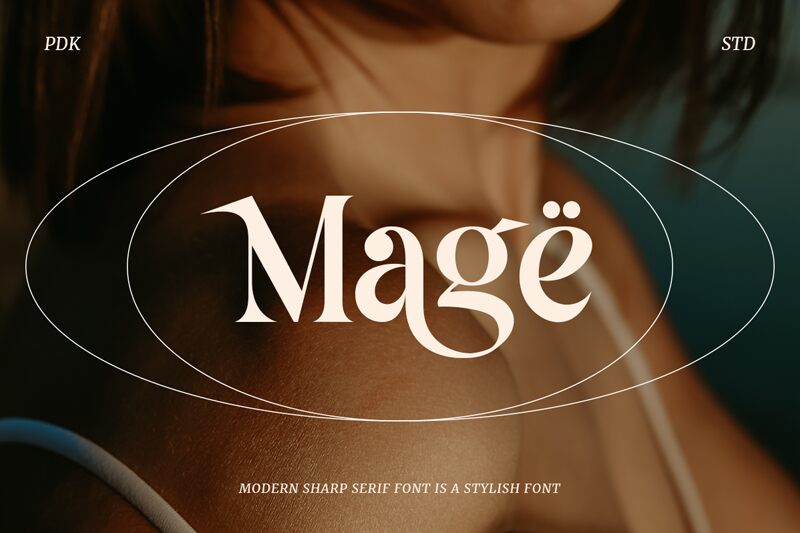
Mage, crafted by Pandeka Studio, stands out with its elegant serif style that exudes a blend of classical charm and contemporary flair. The font's letters boast graceful curves and refined edges that convey sophistication. Its bold strokes create a commanding presence on the page, making it an ideal choice for headlines and titles that aim to leave a lasting impression.
The versatility of Mage is evident in its potential applications across various mediums-its stylish serifs and strong character make it suitable for branding, editorial work, and print media where distinction and readability are key. Whether used in a deluxe product label or an impactful book cover, Mage promises to infuse any project with an air of polished professionalism.
Pandeka Studio